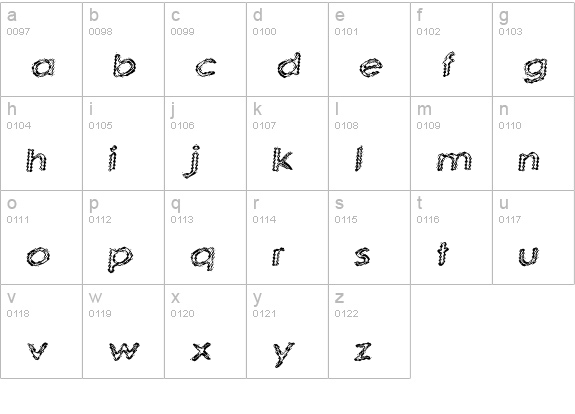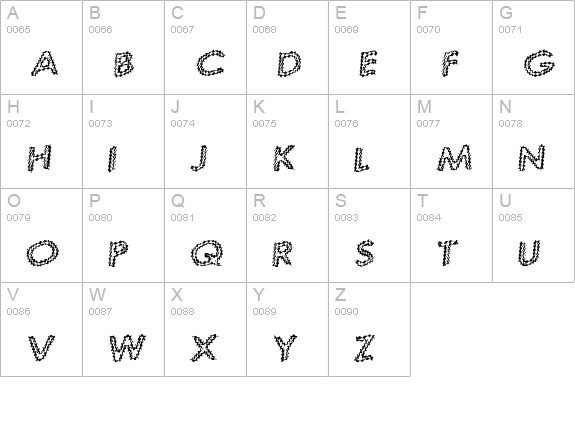
Quaverly G98 Font Details
Introducing Quaverly G98, a stunning font that is both elegant and captivating. This delightful typeface exudes a sense of sophistication and charm, making it the perfect choice for a wide range of creative projects. With its graceful curves and meticulously crafted letterforms, Quaverly G98 effortlessly captures attention and adds a touch of refinement to any design. Whether you're working on invitations, branding materials, or editorial layouts, this font will elevate your project to new heights. One of the most remarkable aspects of Quaverly G98 is that it is available for free. Yes, you read that right – this extraordinary font can be freely downloaded at FontsMarket.com. This means that you can enjoy the beauty and versatility of Quaverly G98 without any cost, making it an invaluable asset for both professionals and amateurs alike. Not only does Quaverly G98 offer a vast array of characters and ligatures, but it also provides multiple weights and styles that enable you to experiment and find the perfect fit for your design vision. From the bold and commanding to the delicate and refined, Quaverly G98 offers a wide range of options to suit any creative endeavor. Its versatility extends beyond the digital realm, as Quaverly G98 is also highly legible in print. Whether it's a book, a magazine, or a poster, this font maintains its elegance and readability, ensuring that your message is conveyed with utmost clarity and style. So why wait? Experience the beauty and versatility of Quaverly G98 today. Download it freely at FontsMarket.com and unlock a world of creative possibilities. With its timeless appeal and exceptional quality, Quaverly G98 is undoubtedly a font that will leave a lasting impression on any project it graces.